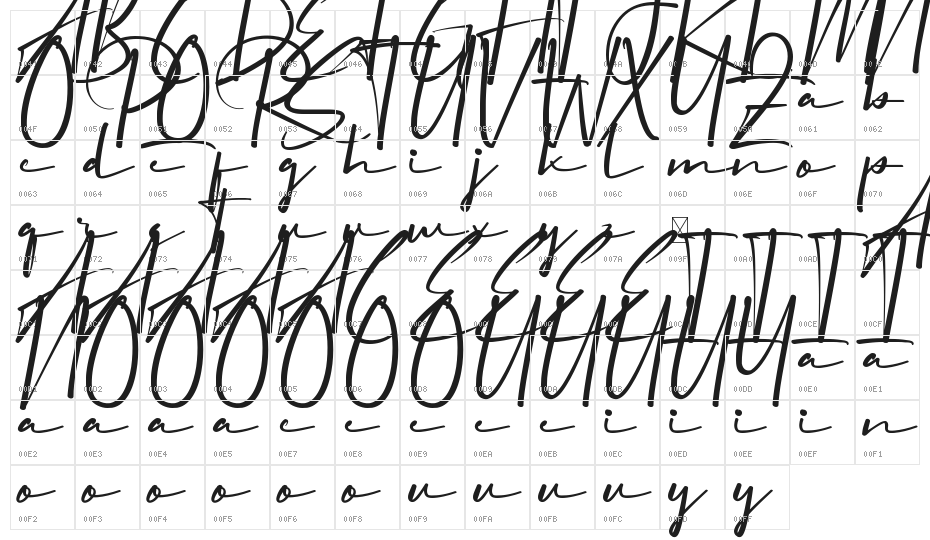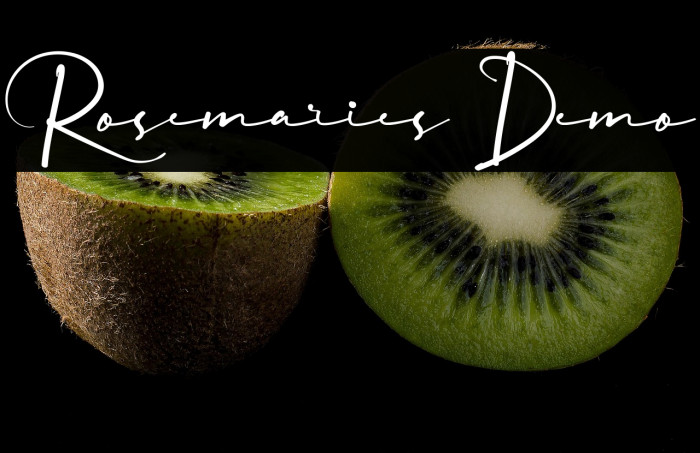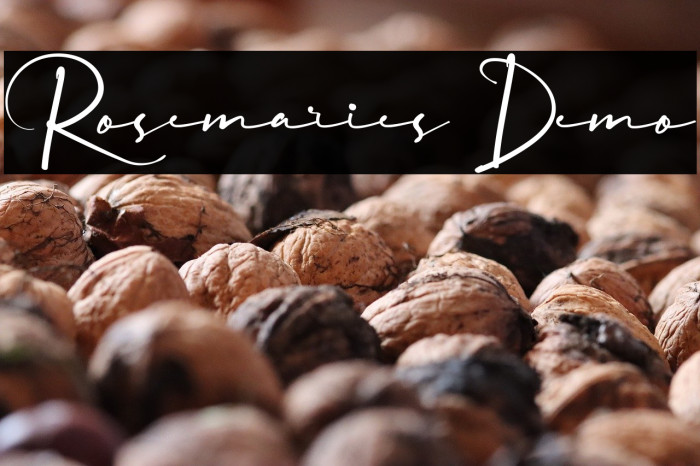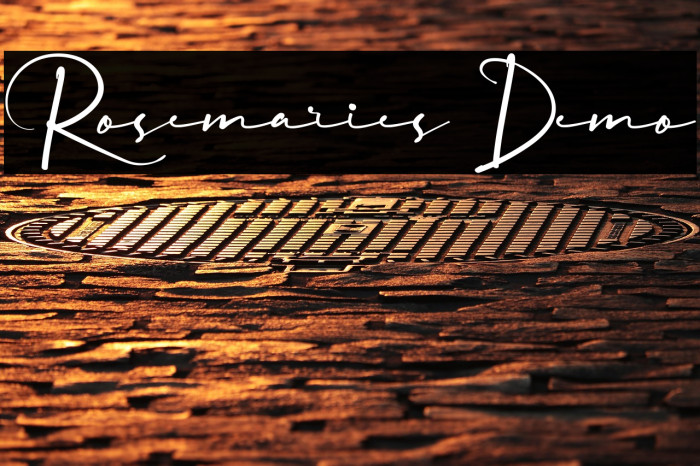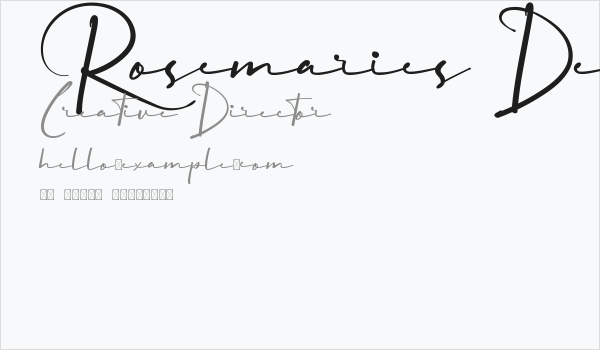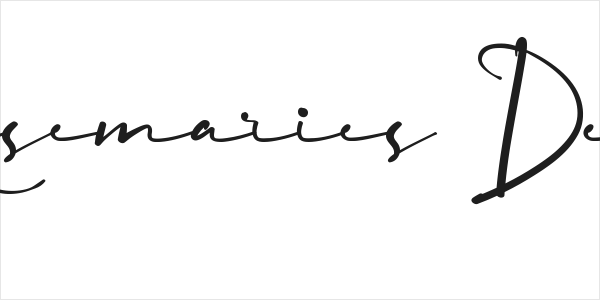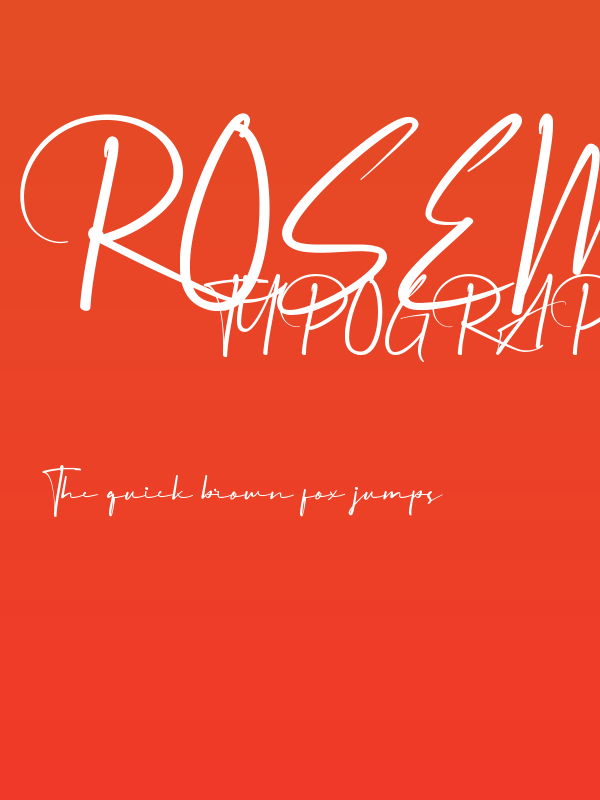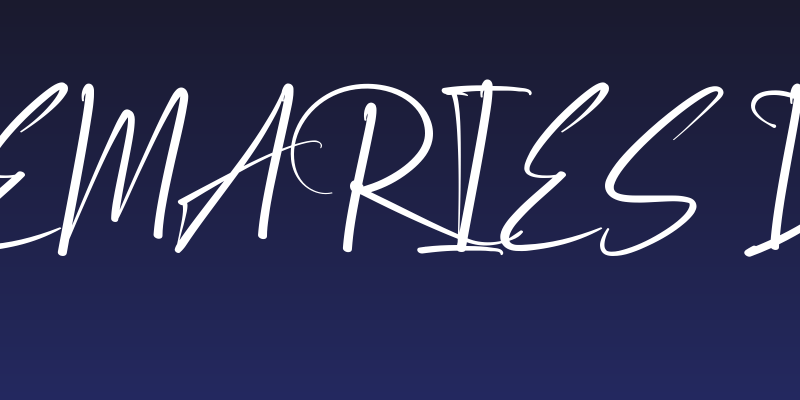
Rosemaries Demo Font
Rosemaries Demo Description
This font features a unique handwritten style with a modern twist. The characters are elegantly crafted with a fluid, cursive appearance, giving it a personal and artistic touch. The uppercase letters exhibit a bold and confident presence, while the lowercase letters maintain a graceful and flowing form. The numbers and special characters are designed to complement the overall aesthetic, ensuring consistency across all elements. The font's playful yet sophisticated design makes it suitable for a variety of creative projects, adding a touch of elegance and individuality.
| Proposed Projects | Ideal for wedding invitations, personal branding, greeting cards, and artistic projects. |